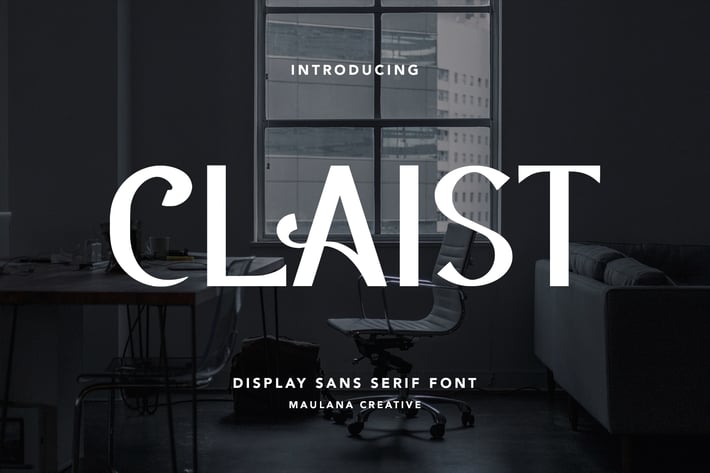
Claist Decorative Display Font
Introducing Claist Decorative Display Font.
Claist Decorative Display Font is a handmade Modern Victorian handlettering, which is combining modern and classic typography with some awesome alternates. Yes we back to early 1800s, bring classic touch on this decade.